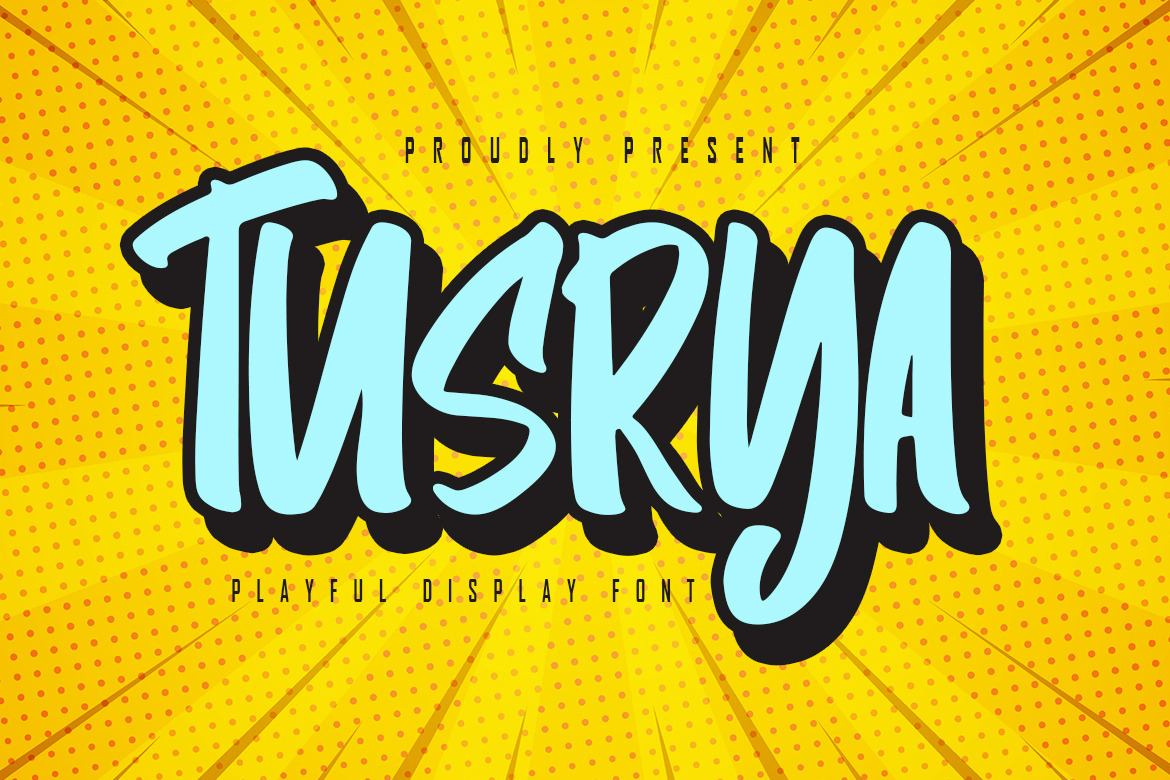
Tusrya - Playful Display Font
Tusrya is a beautiful love font suitable for business or commercial use to support your promotions such as designs, banners, flyers, clothes and much more